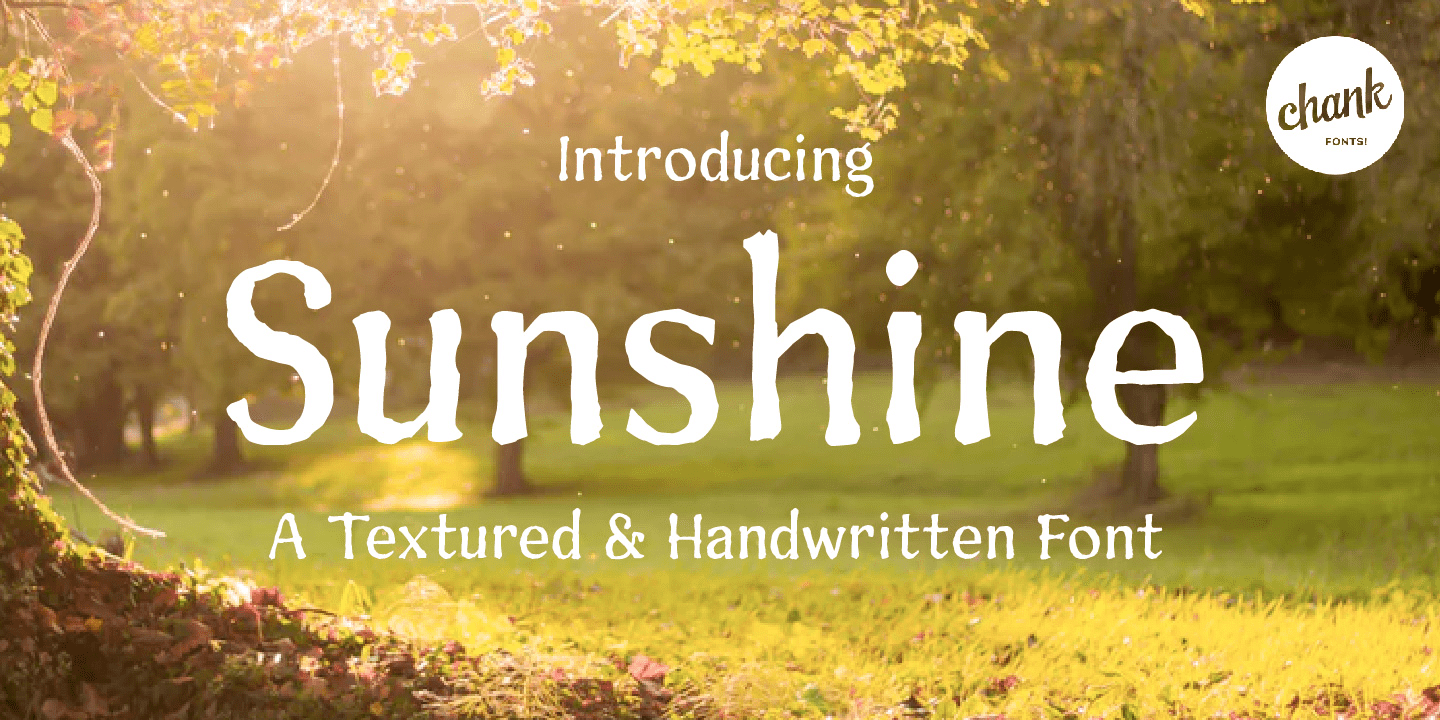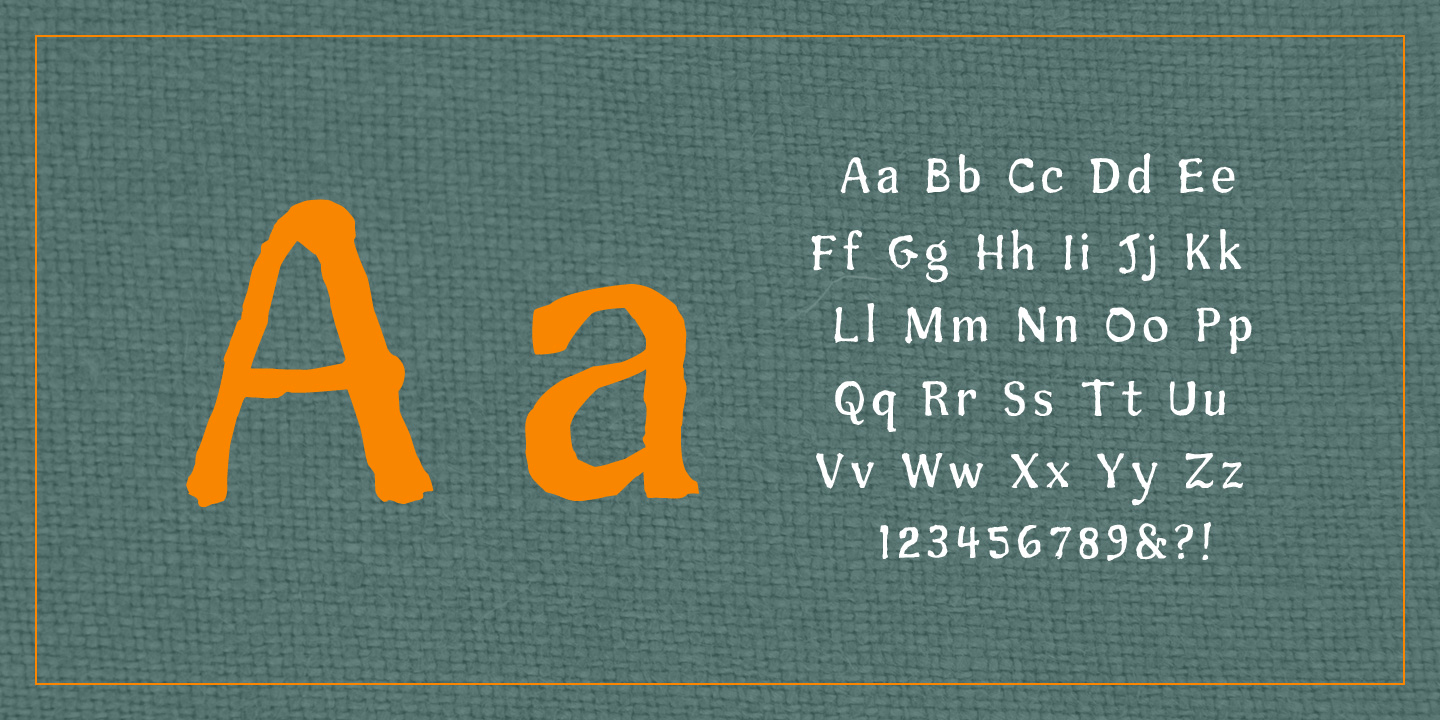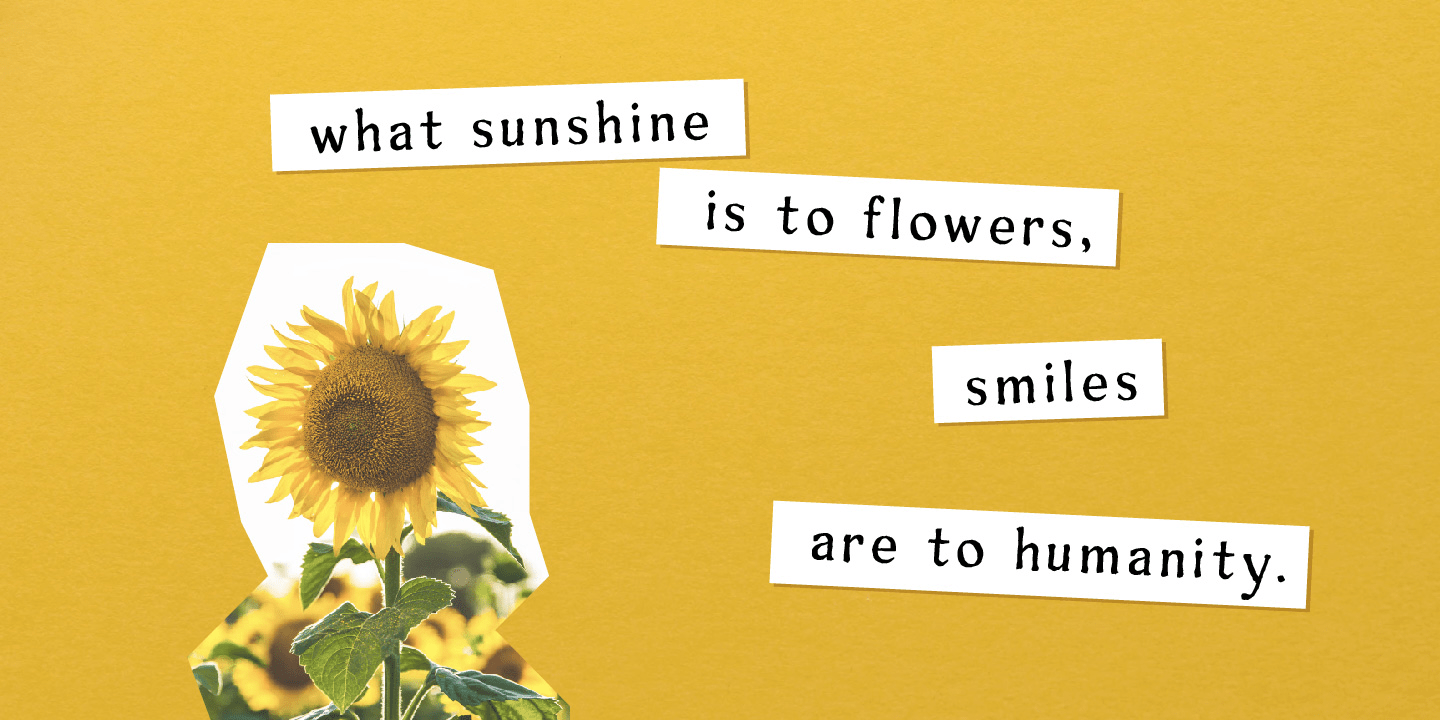
Sunshine
Font Family by Chank Co
Sunshine is the unlikely alphabet collision of Gobbler and Liquorstore. Chank's napkin scrawl smashed into the letters commonly found on signage at the neighborhood liquorstore. Gobbler's blotchy textures fragmented Liquorstore's uniform stroke. It began as a hideous lumpy thing with random vector points everywhere. Chank came to the rescue with his Alphabetician's first aid kit. He smoothed the blunt corners with a few hammer blows. He wrapped the font in extra strokes, in a sans serif Roman style, to increase its contrast. His industrial influence helped stabilize Gobbler's gloppy qualities and his grunge aesthetic softened Liquorstore's checkerboard rigidity. The end result is a font with a solid structure and a Charles Schulz-like wiggle that creates a dirty display or a slightly clumsy text face. Because of its many detailed strokes, it tends to look a little better in print than on the web.